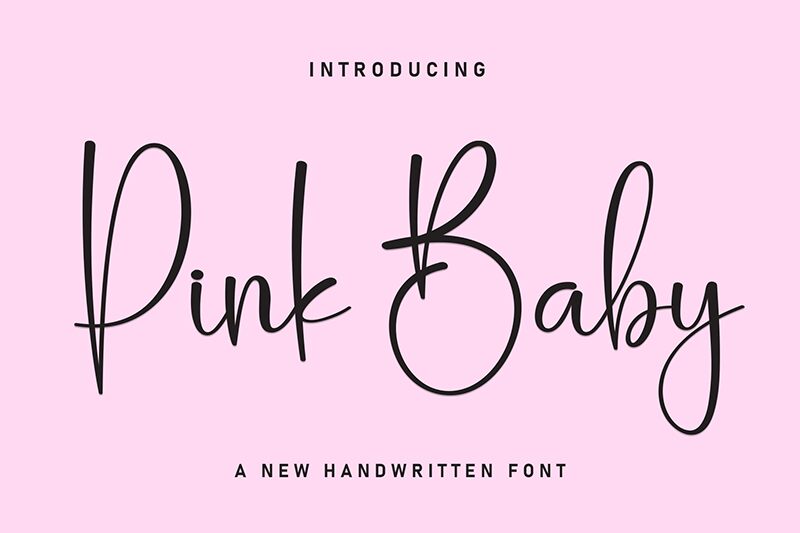
Pink Baby
Pink Baby font by Scratchones is a light handwritten font selection with elegant casual sophistication and expressive flair. Its flow is smooth and pleasing to the eyes which allows it to portray modern calligraphy styles within different design projects.